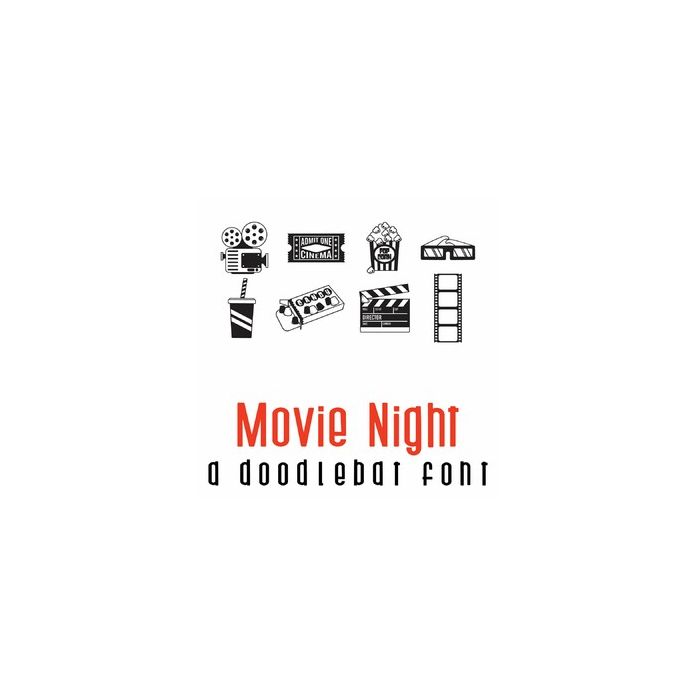
Movie Night Doodlebat Font
This fun doodlebat features 26 movie-themed images perfect for parties, cards, crafts, decor, planner stickers, scrapbook pages and more!